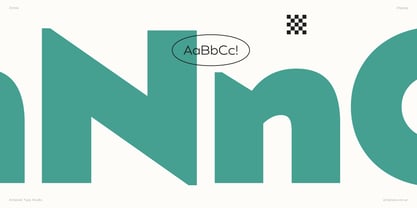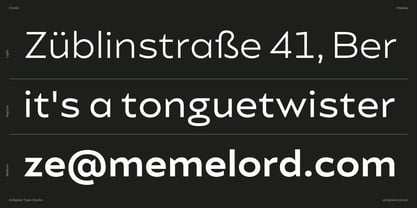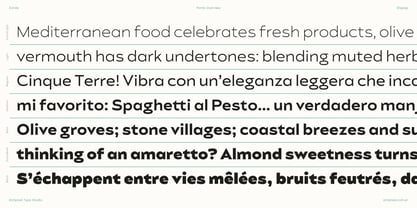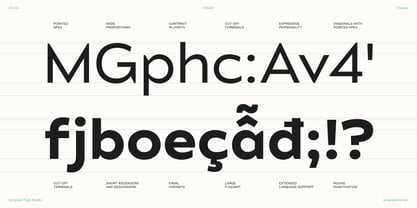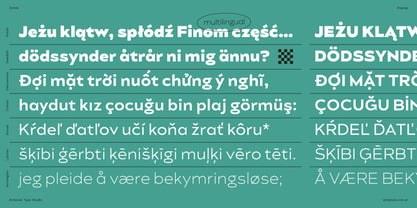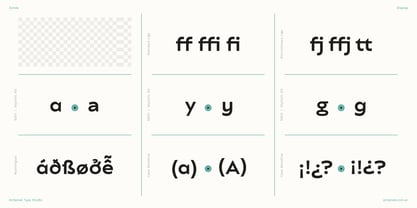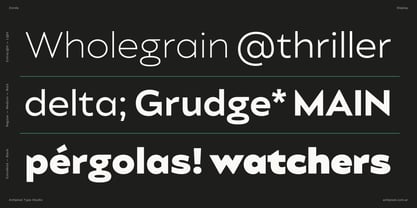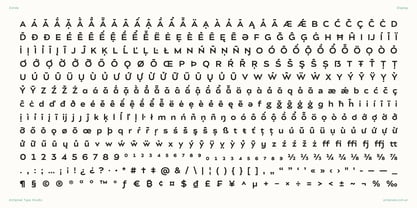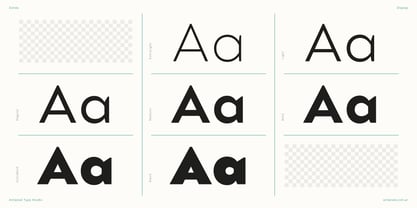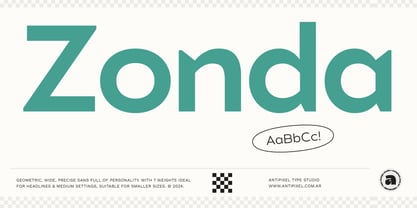
Zonda
by Antipixel
The Zonda Font Family was designed by Julia Martinez Diana and published by Antipixel. Zonda contains 7 styles and family package options. More about this family
Zonda is a geometric, precise, and modern sans-serif typeface full of personality. Zonda consists of 7 weights, allowing versatility and emphasis in any design. With its perfect blend of circular and triangular forms, Zonda stands out with the geometry of its sharp diagonals, squares, and fat round curves. It is solid and robust, yet delicate. The typeface's minor weight contrast in the joints adds a touch of sophistication, enhancing readability while maintaining a bold presence, and ensuring your message is conveyed with both power and grace. Moderately wide in structure, Zonda is crafted for clarity and quality, making it ideal for headlines, big and medium settings, while also suitable for smaller sizes. One of the main features of Zonda is its acute angled intersections, which create pointed apex and vertex, adding a touch of charisma and emphasizing its geometric design. Other characteristics of its structure include wide proportions, large x-height, short ascenders and descenders, vertical axis, and cut-off terminals. Designed to make an impact across multiple languages, Zonda offers extensive glyph support and covers 216 languages, making it ideal for international reach and global use. Some of its OpenType features are Stylistic Alternates, Stylistic Sets, Contextual Alternates, Case Sensitive forms, and more.
Designers: Julia Martinez Diana
Foundry: Antipixel
Antipixel is an independent type design studio with main focus on display typefaces. Founded and run by Julia Martinez Diana since 2014, the studio has a collection of 15 published font families. These are all energetic and hand-rendered typefaces, full of spirited quality, energy, and casual character. Always with a charismatic personal touch and with love for natural and organic forms.